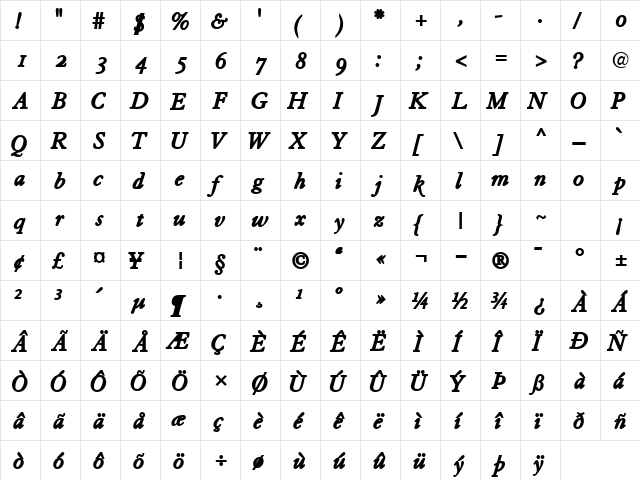
TiascoOSSSK BoldItalic Font Preview
Design Context for TiascoOSSSK Typeface
TiascoOSSSK takes a measured approach to typography — its balanced proportions and neutral character make it a reliable workhorse for both digital and print work. Its italic angle brings a sense of urgency and motion to the letterforms. The heavy weight commands attention and anchors typographic hierarchies.
Pro Tip: Try TiascoOSSSK for annotation and caption copy alongside an upright companion — the contrast in angle creates a dynamic but ordered typographic system.